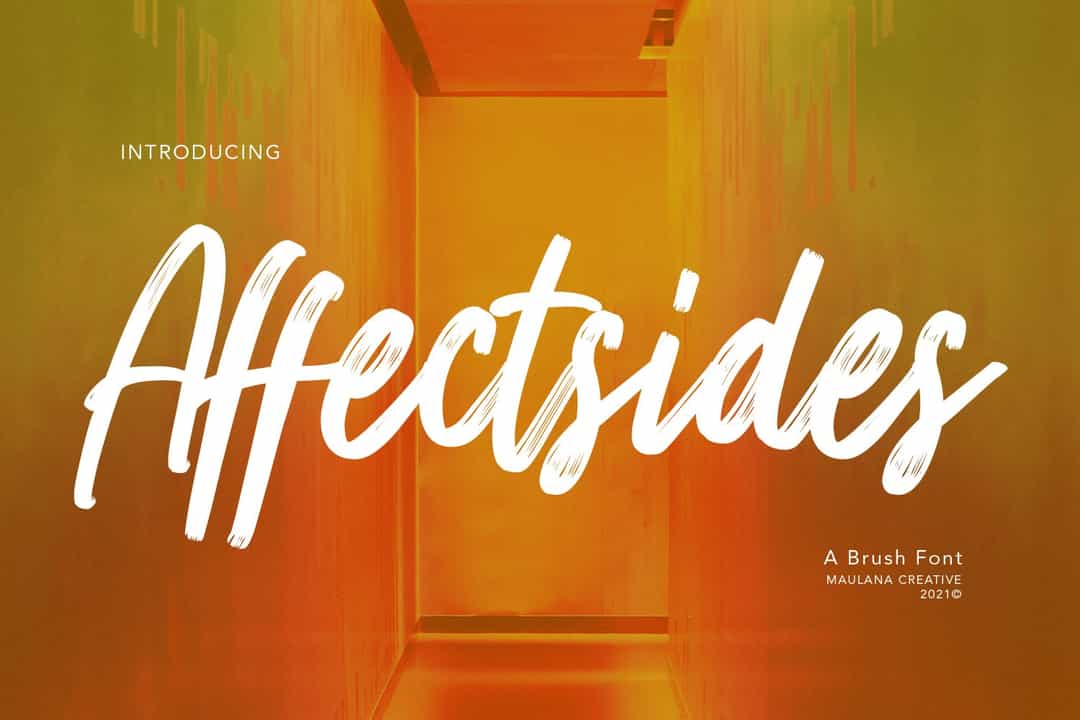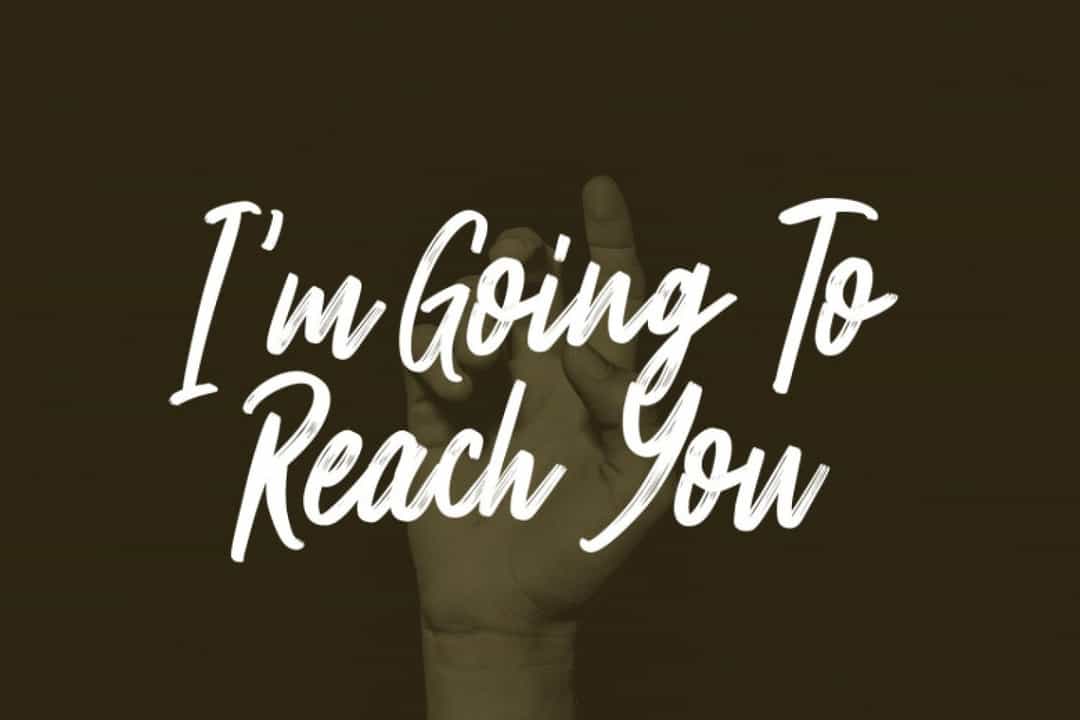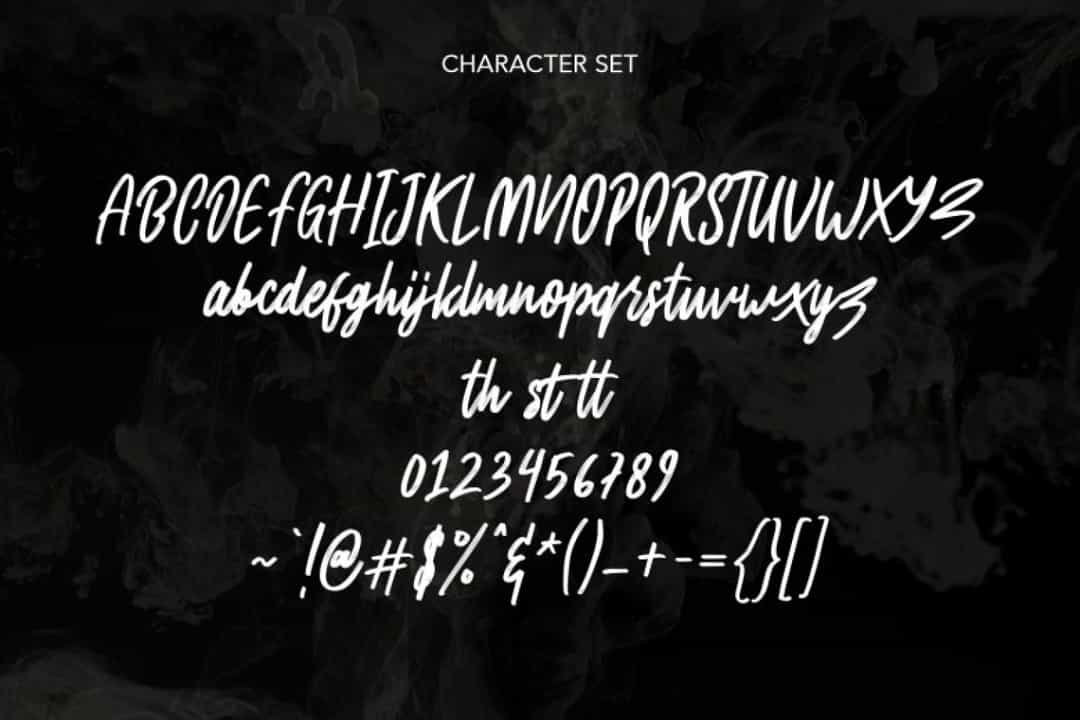
Affectsides is a brush script font with natural-feeling brush strokes and lively characters, including some ligatures and alternate lowercase letters for additional creativity and imagination. Multilingual support of more than 100 languages makes Affectsides even more practical for creative work!